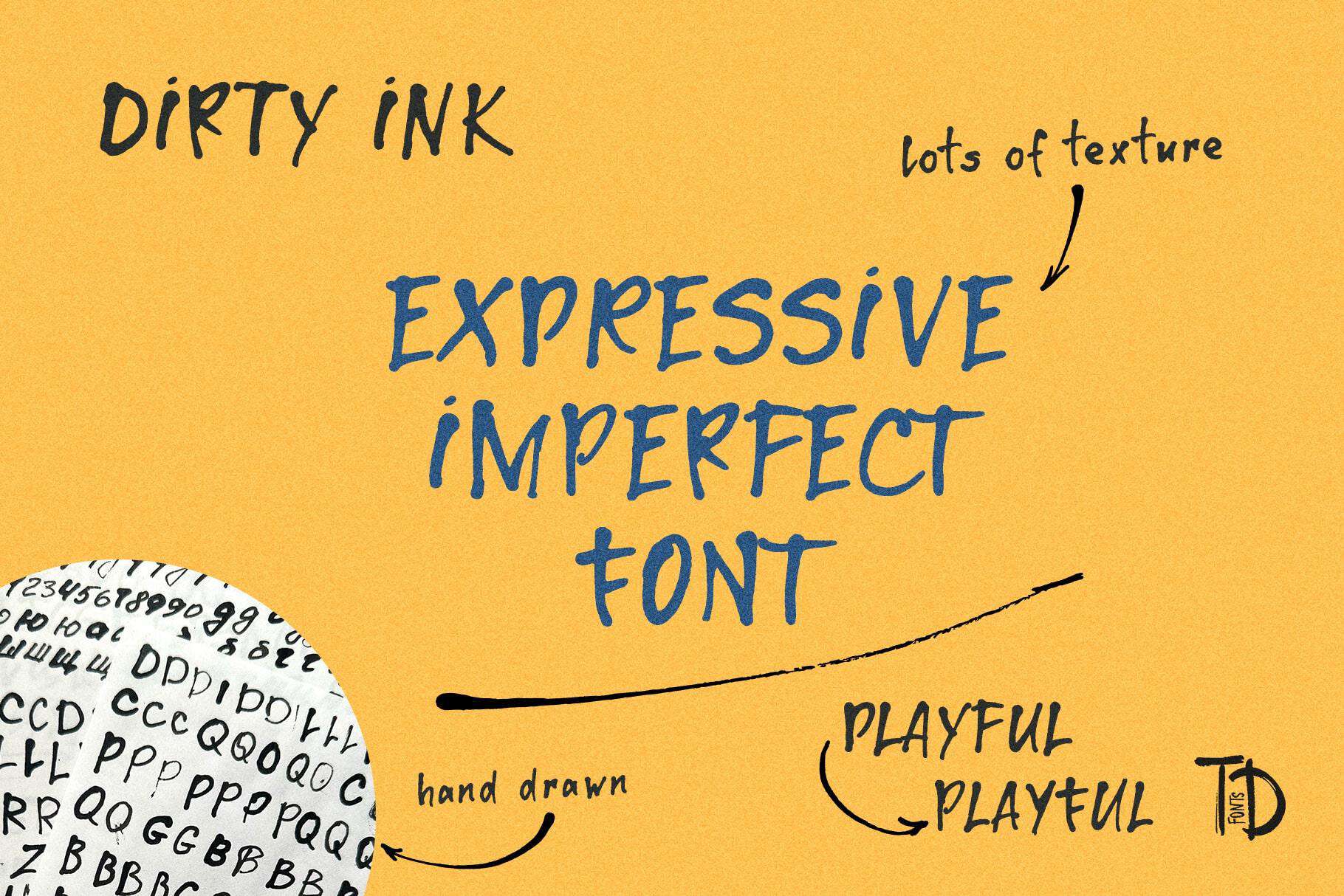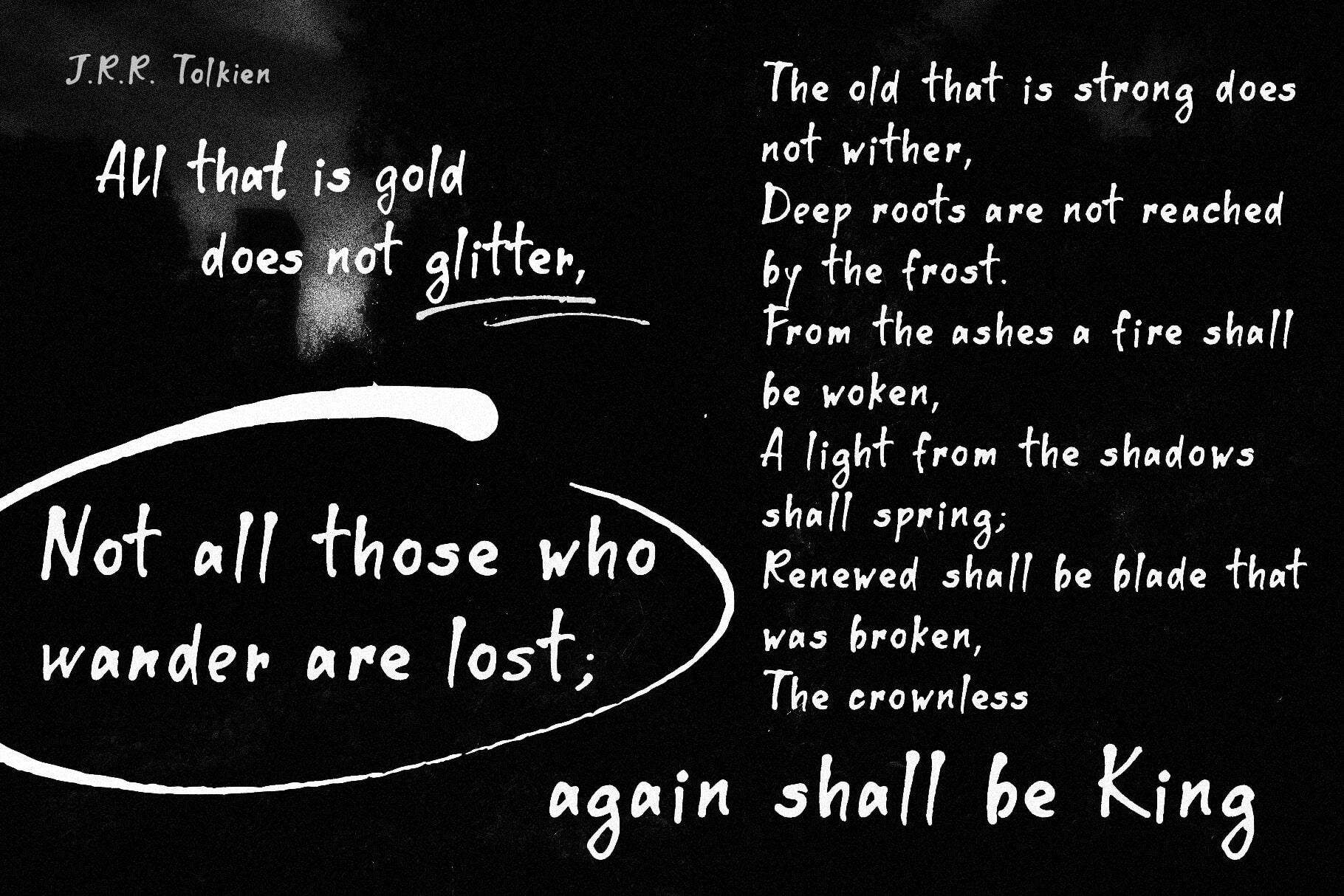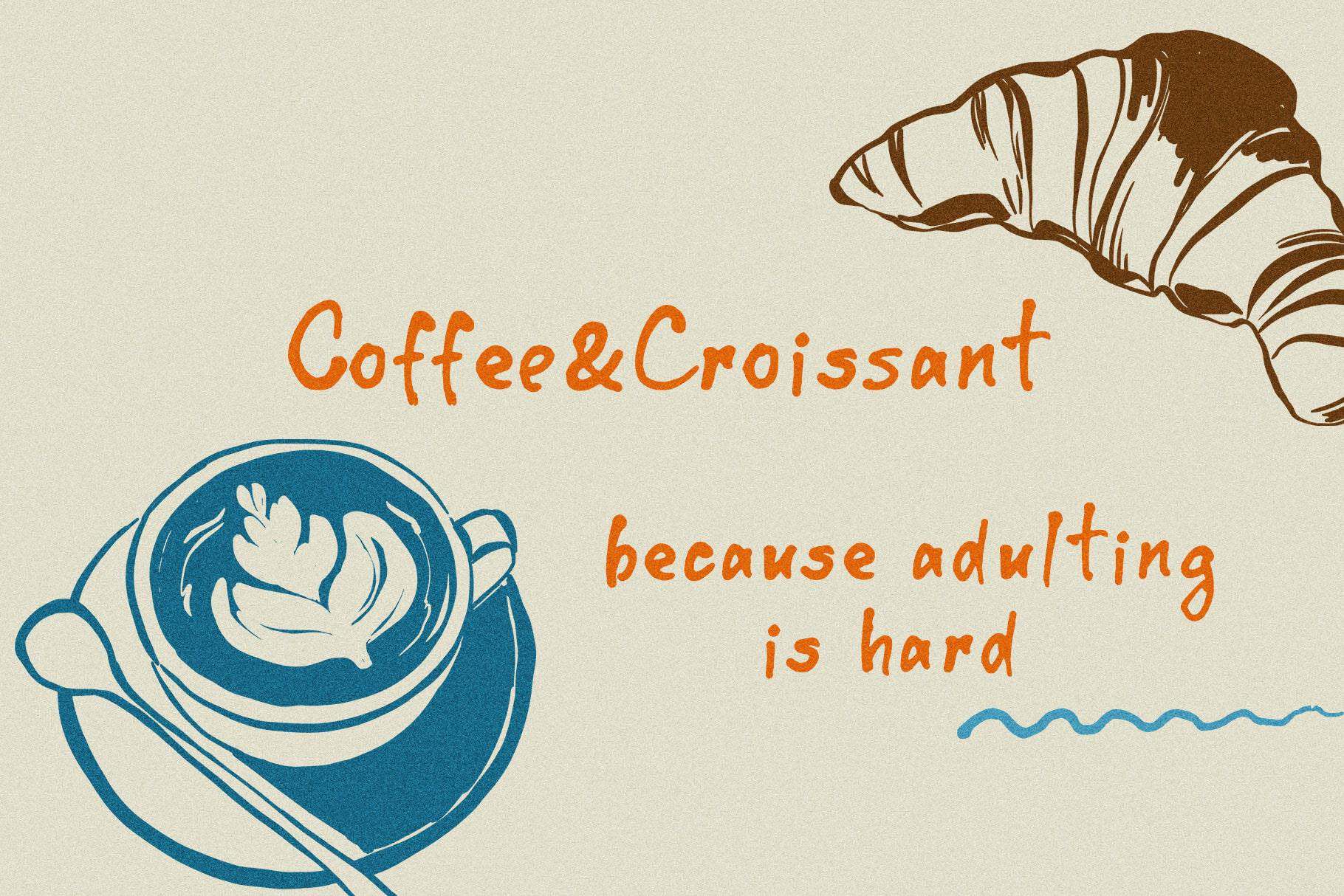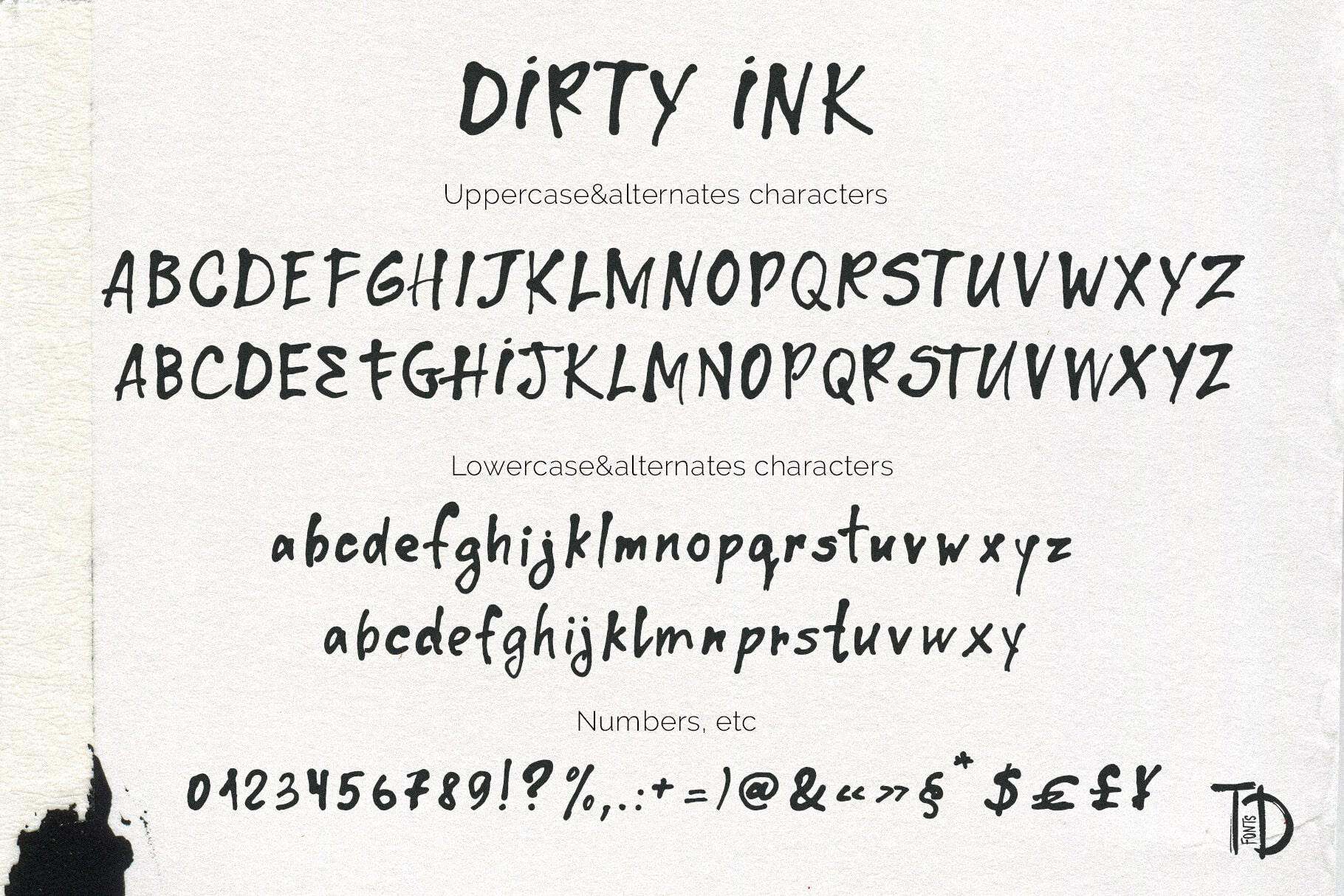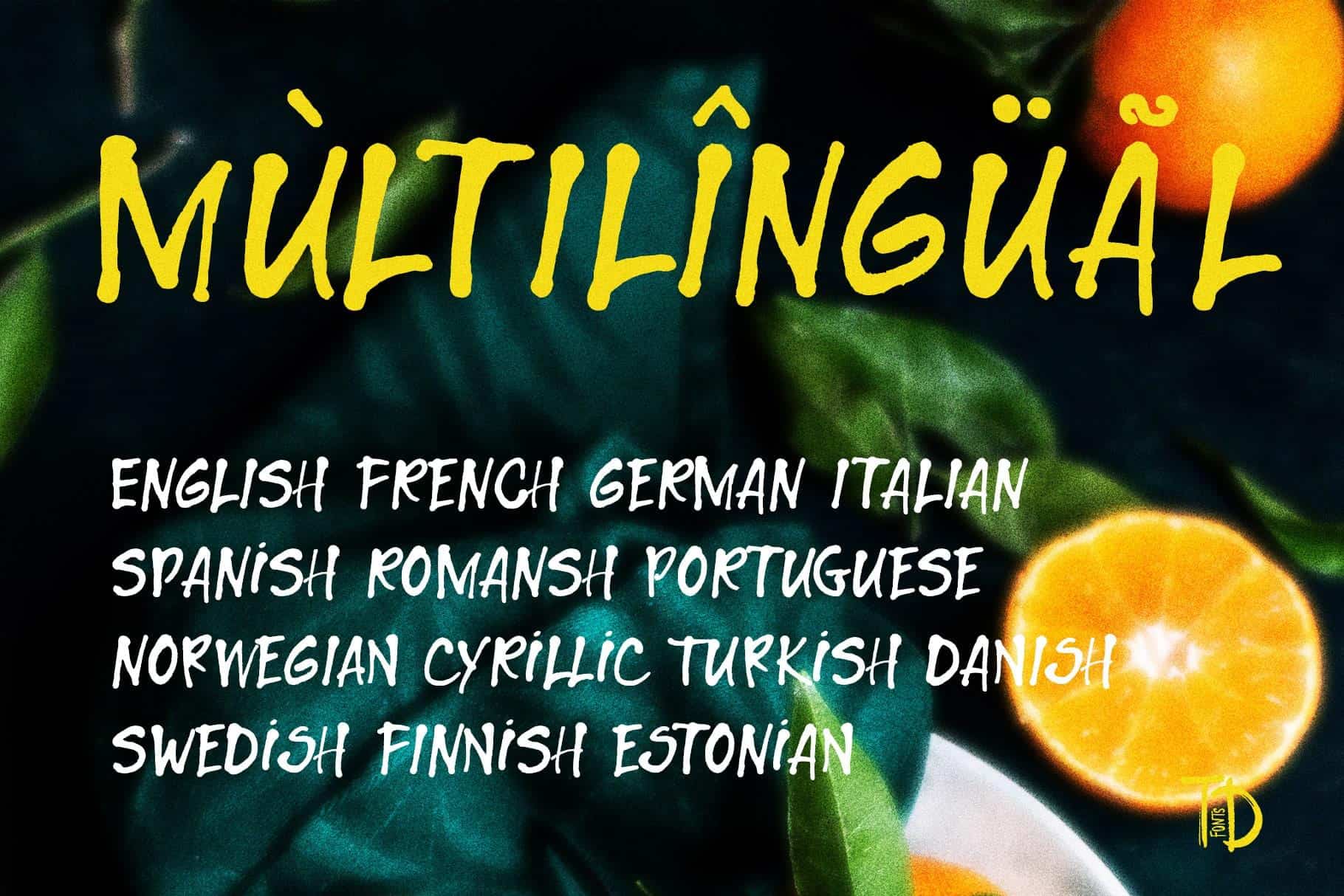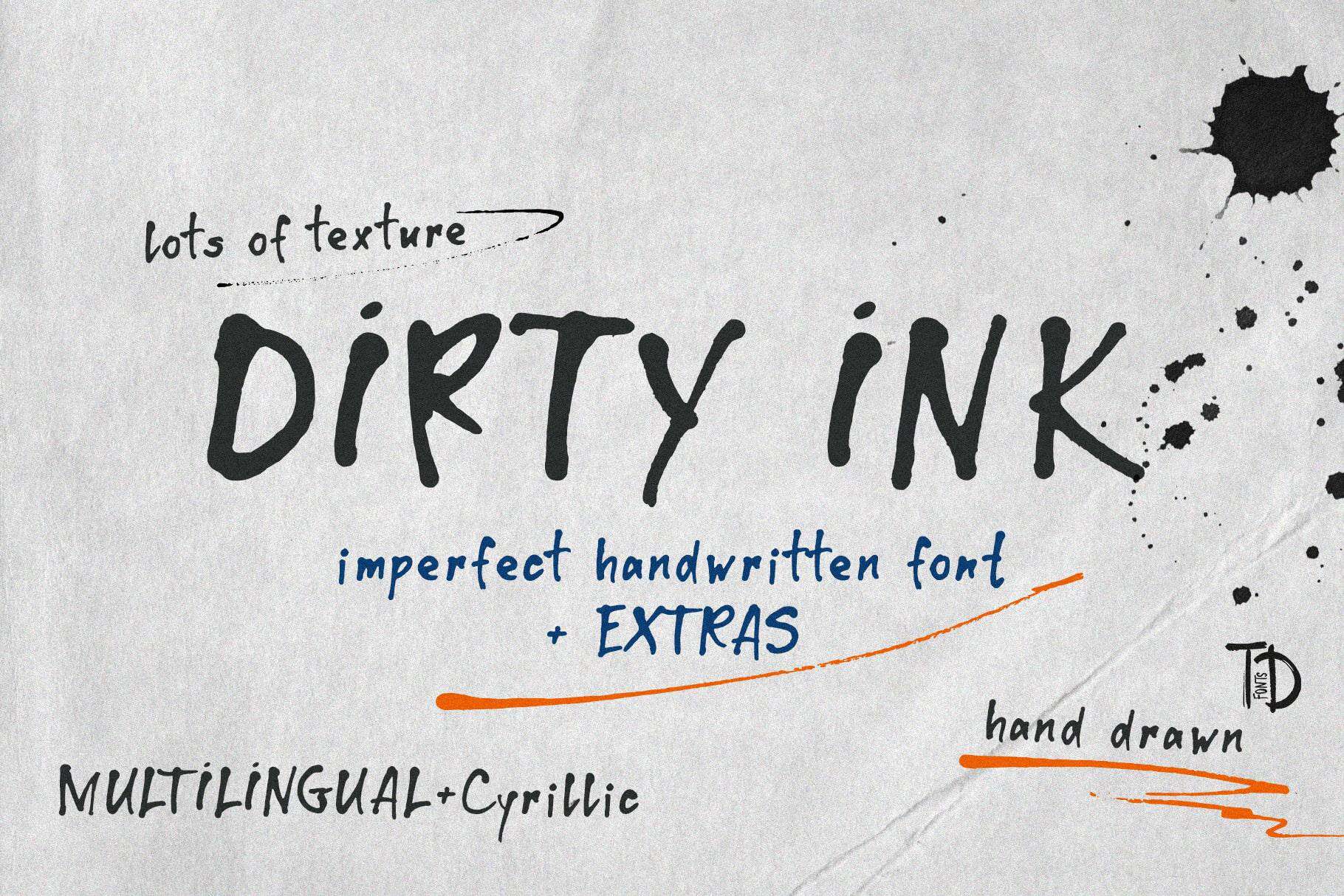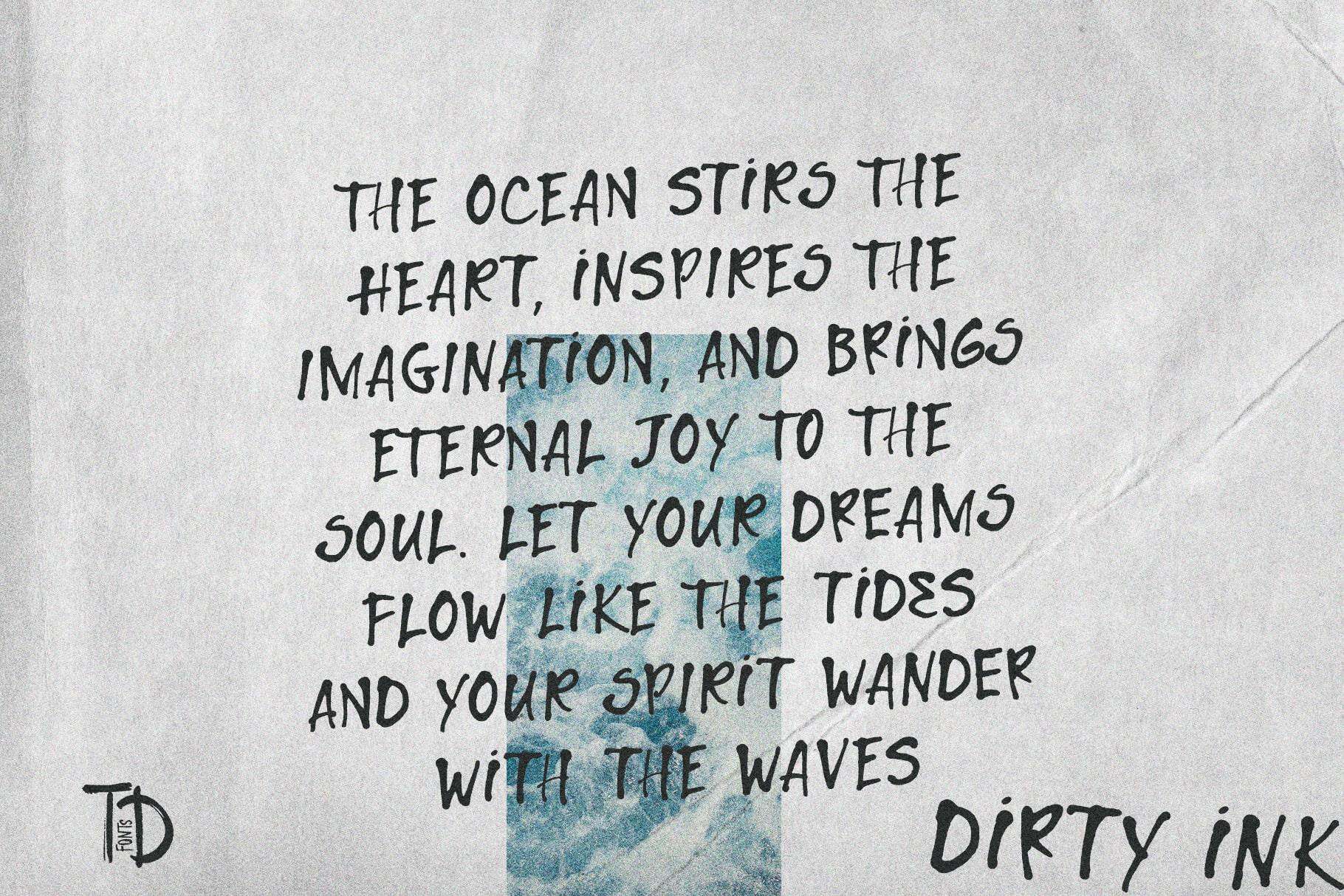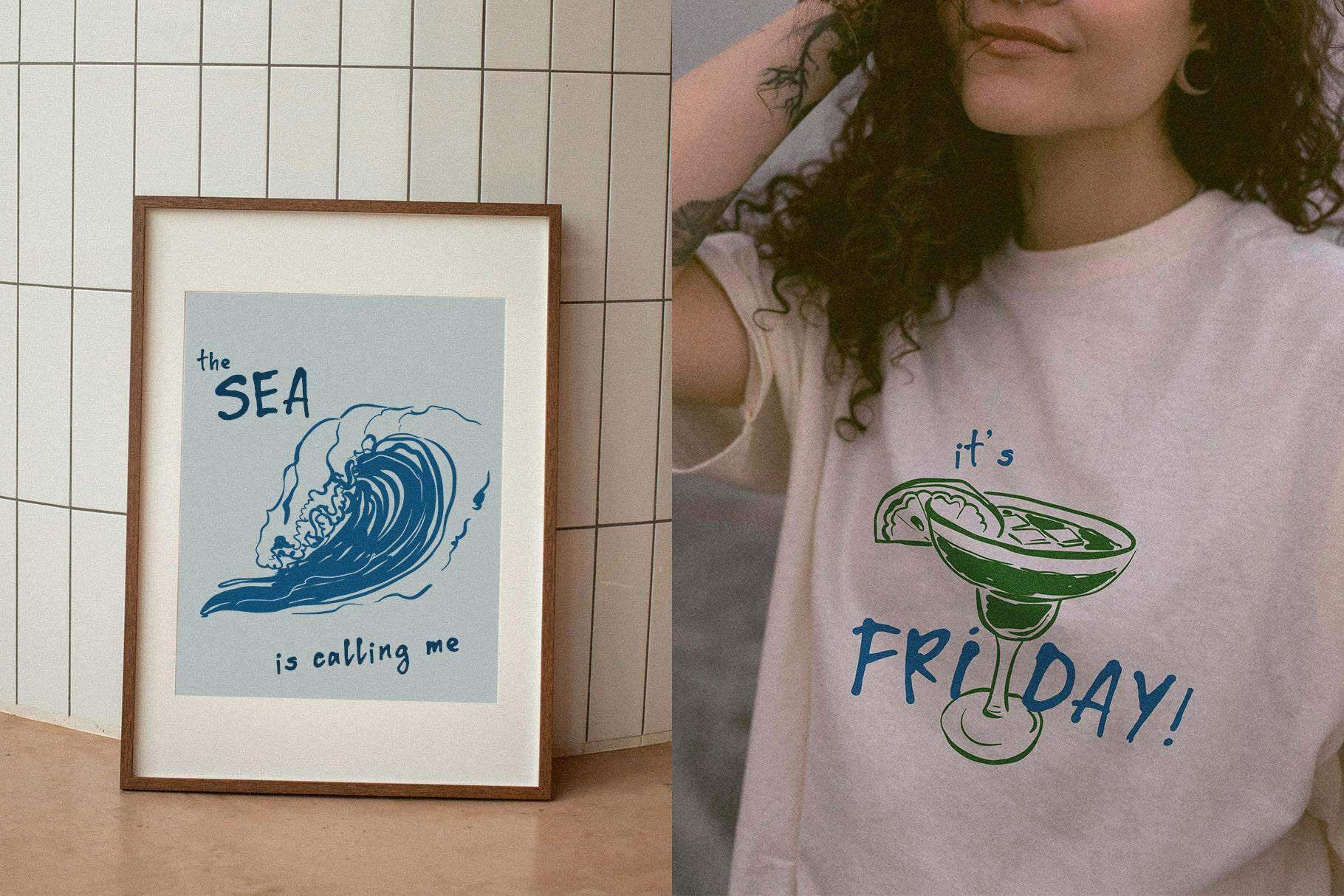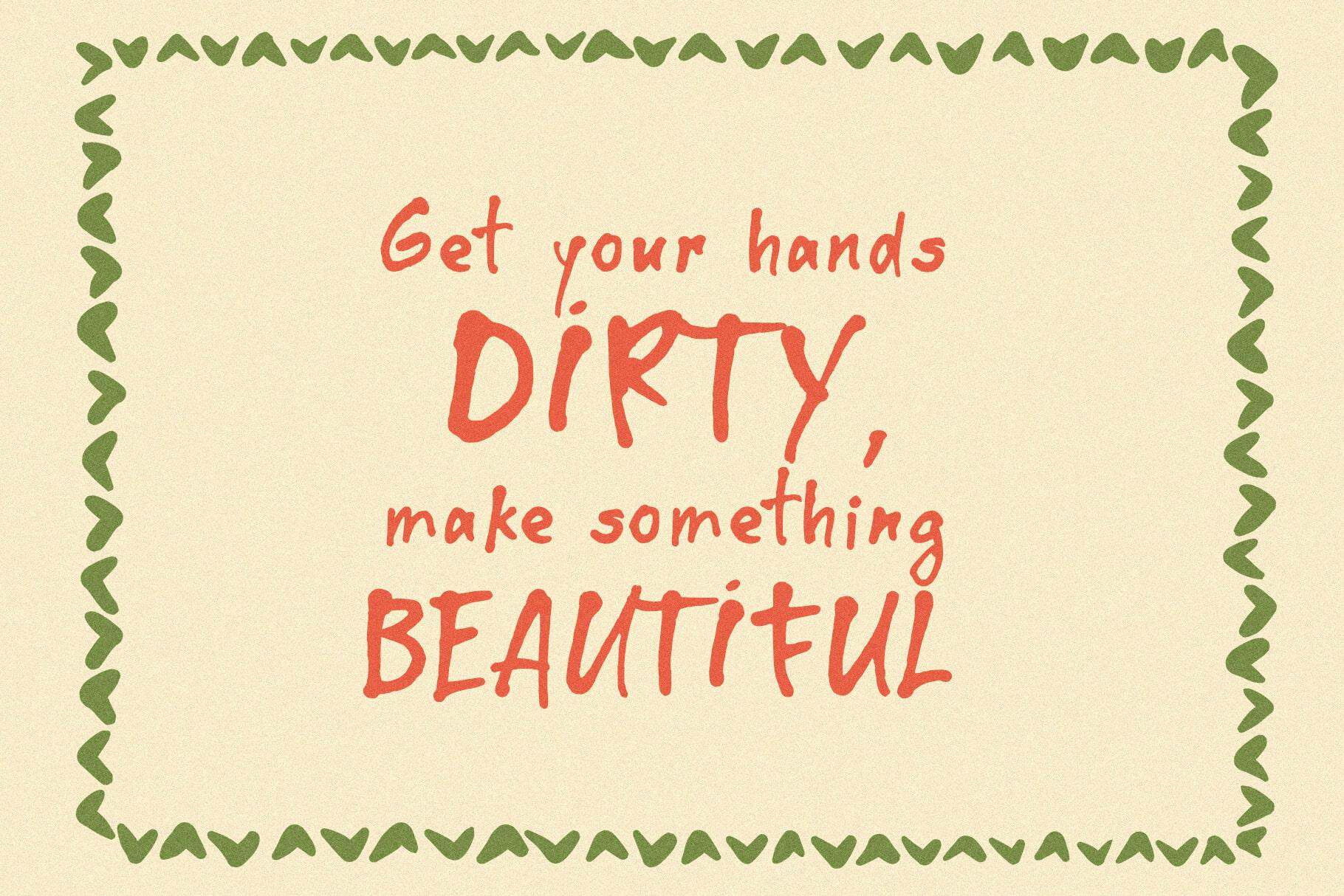
Dirty Ink unique handwriting font with hand drawn texture
Dirty Ink is a unique handcrafted typeface that radiates creativity and personality. Crafted with ink and the reverse side of a brush — essentially using a simple stick — this font features a distinctive texture with lively, slightly imperfect letters. It’s a font that captures the raw, unpolished beauty of handmade design.
With support for an extended Latin alphabet and Cyrillic characters, Dirty Ink is versatile and suitable for various languages. It also comes with additional flourishes, borders, and arrows, giving you extra tools to elevate your designs.
Whether you're working on branding, websites, posters, or any project that needs a personal touch, Dirty Ink is the perfect accent font. It resonates with the spirit of craftsmanship, bringing an authentic, human element to your work. Dirty Ink isn’t just a font; it’s a celebration of imperfection, where every letter is a piece of art.
Dirty Ink has extensive language support, it includes English, French, German, Italian, Spanish, Portuguese, Danish, Norwegian, Swedish, Finnish, Estonian, Romansh, Turkish, Cyrillic.